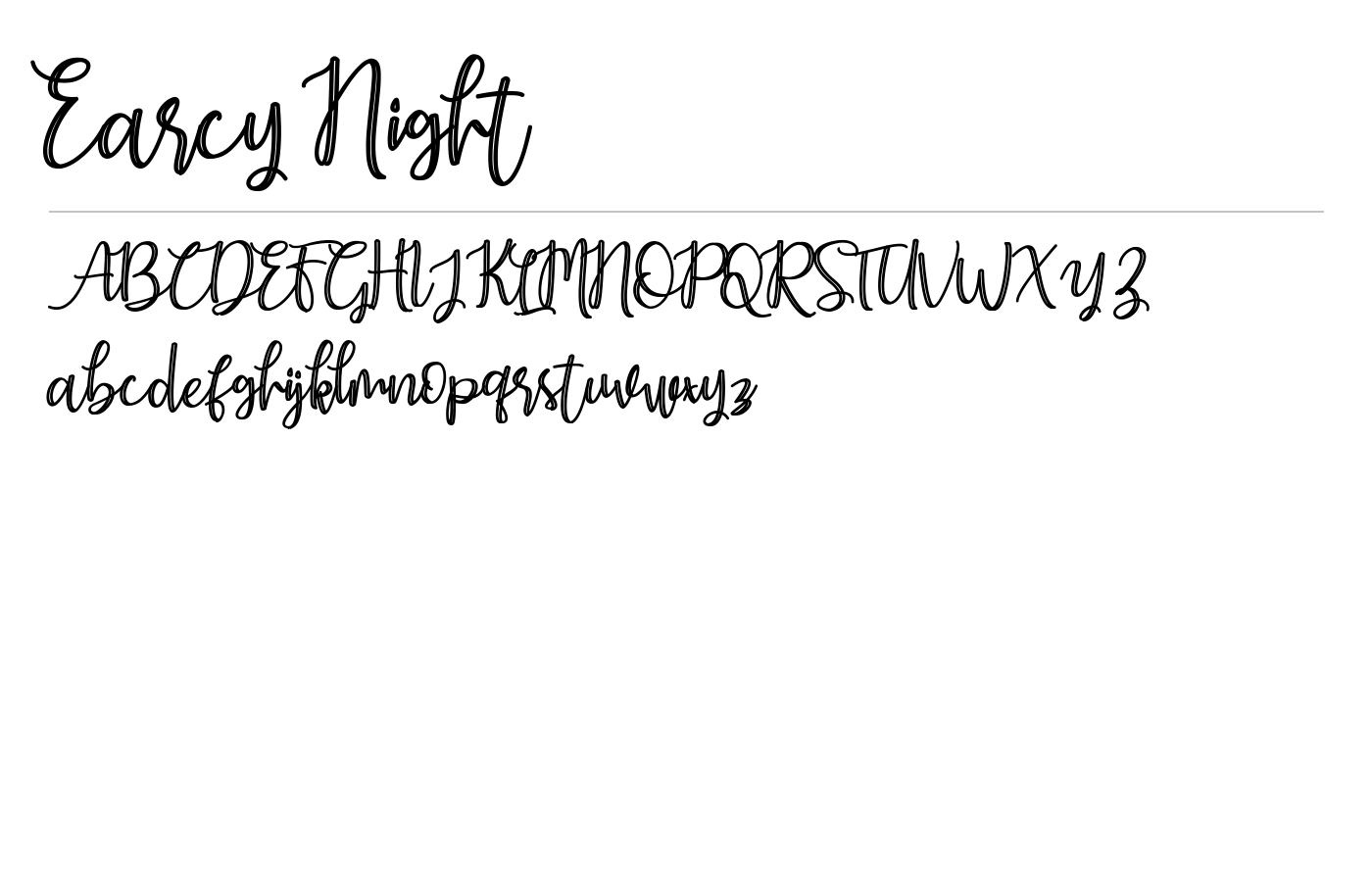
Earcy Night is a whimsical script font with a light, playful touch, featuring fluid, hand-drawn letterforms that convey a casual yet elegant feel. Its delicate strokes and unique letter shapes make it an excellent choice for creative projects like invitations, branding, and personal designs where a charming handmade impression is desired. This font works beautifully in headlines and short text, adding a warm and friendly personality to any visual presentation.
Earcy Night Font
About Earcy Night Font
| Font family | Earcy Night Font |